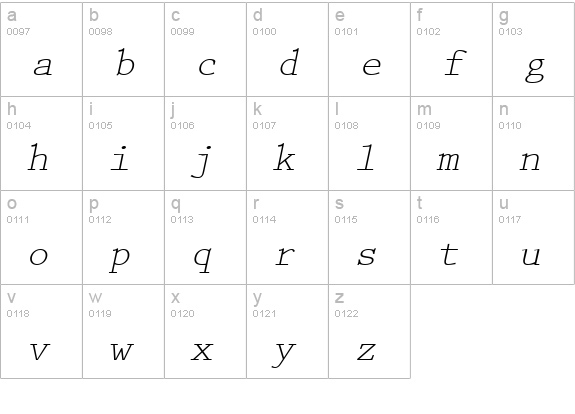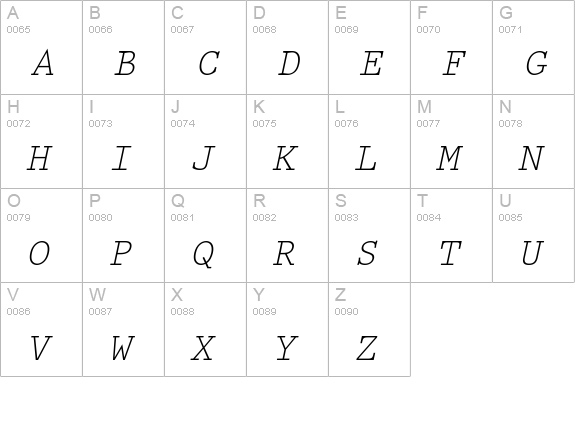
Keyboard Elite SSi Italic Font Details
Keyboard Elite SSi Italic is a distinctive, italic variant in the Keyboard typeface family \xE2\x80\x94 well suited to design and typography projects.
Keyboard Elite SSi Italic font is a stylish and sophisticated typeface that adds a touch of elegance to any design project. With its sleek and slanted letterforms, this font exudes a sense of modernity and class. The italicized design of Keyboard Elite SSi Italic font adds a dynamic and fluid feel to your text, making it perfect for titles, headlines, and other prominent elements in your designs. Whether you're creating a website, designing a logo, or working on a print project, this font adds a professional and polished look. One of the best things about Keyboard Elite SSi Italic font is that it is freely available to download at FontsMarket.com. This means that you can easily access and use this font in your projects without any hassle or cost. It's a great opportunity to enhance your designs with a high-quality font that won't break the bank. The versatility of Keyboard Elite SSi Italic font makes it suitable for a wide range of design applications. From business cards to brochures, from social media graphics to signage, this font can elevate the visual appeal of your creations. Its legibility and unique style make it a perfect choice for both digital and print materials. Whether you're a graphic designer, a web developer, or simply someone looking to add a touch of sophistication to their personal projects, Keyboard Elite SSi Italic font is a must-have. Its sleek design, versatility, and the fact that it is freely available to download at FontsMarket.com make it an excellent choice for any design endeavor. So go ahead and download this font today to elevate your designs to the next level.